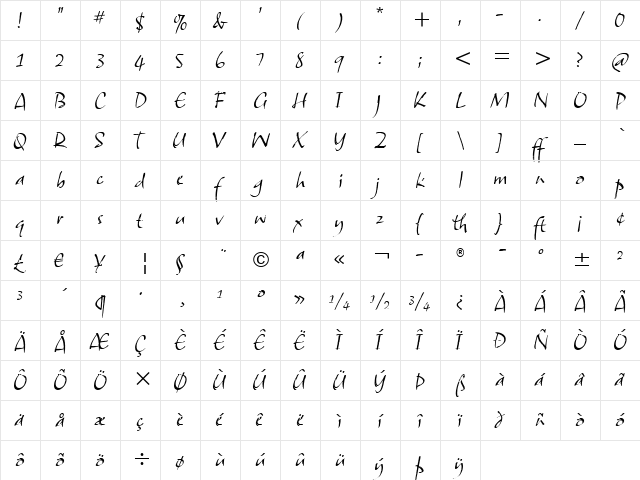
Samuel ITC Light Italic
Design Context for Samuel ITC Typeface
Samuel ITC takes a measured approach to typography — its balanced proportions and neutral character make it a reliable workhorse for both digital and print work. The dynamic lean of this cut emphasises speed and emphasis in any layout. Its slender proportions lend an understated elegance to any composition.